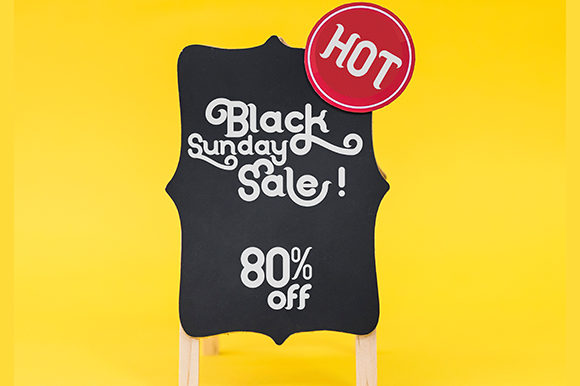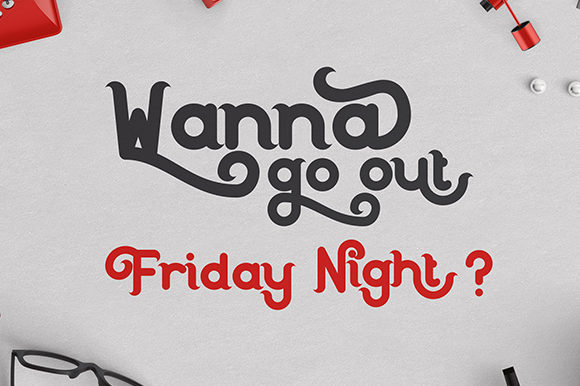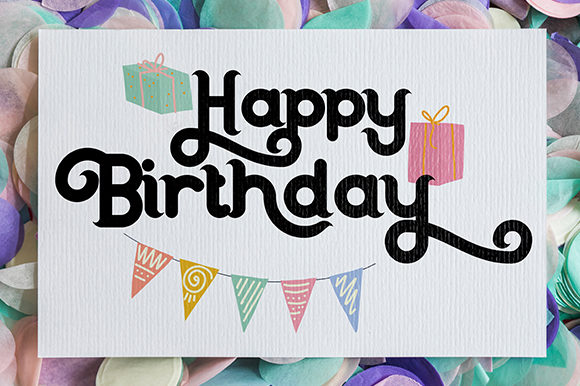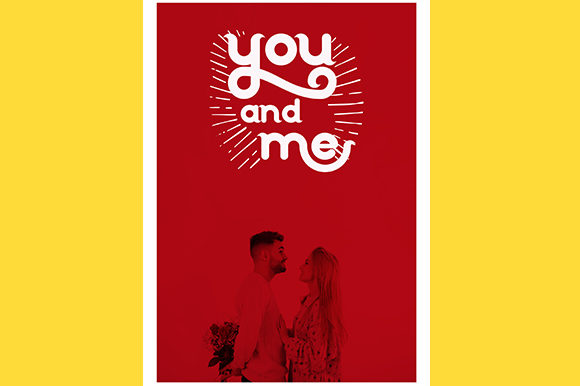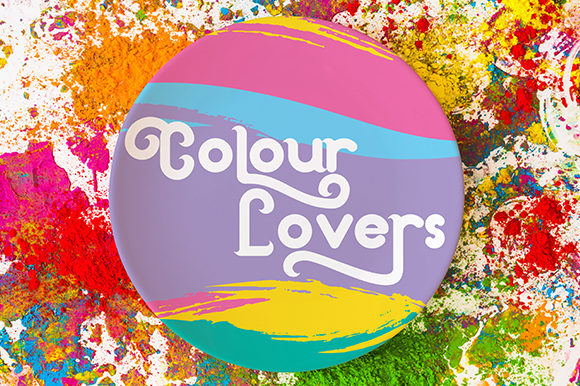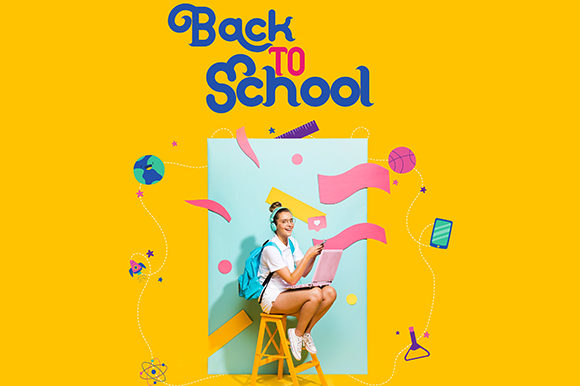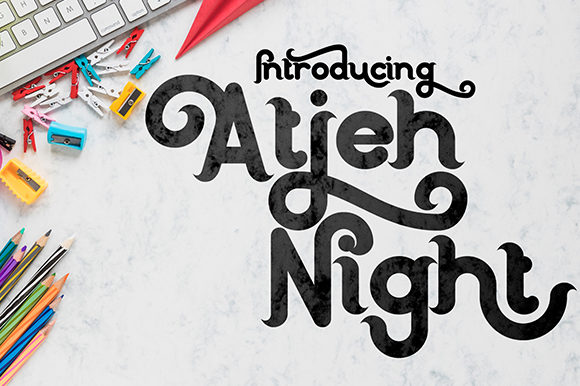
Unleash the Extraordinary: Exploring the Atjeh Night Font
Are you tired of using the same old fonts in your design projects? Look no further! Atjeh Night is a twisted and extravagant display font that will add an extraordinary feel to any design project. In this article, we’ll dive into the world of Atjeh Night and explore its unique features, uses, and benefits for designers and crafters.
What is Atjeh Night Font?
Atjeh Night is a display font that boasts a distinctive, twisted, and extravagant style. Its unique design makes it perfect for adding a touch of drama and flair to any design project. Whether you’re working on a logo, poster, or social media graphic, Atjeh Night is sure to turn heads.
Key Features of Atjeh Night Font
- Twisted and Extravagant Design: Atjeh Night’s unique design sets it apart from other fonts. Its twisted and extravagant style adds a touch of drama and flair to any design project.
- Display Font: Atjeh Night is a display font, making it perfect for headlines, titles, and other attention-grabbing elements.
- Highly Versatile: Atjeh Night can be used in a variety of design projects, from logos and posters to social media graphics and more.
Benefits of Using Atjeh Night Font
So, why should you use Atjeh Night in your design projects? Here are just a few benefits:
- Adds Drama and Flair: Atjeh Night’s unique design adds a touch of drama and flair to any design project, making it perfect for designers who want to make a statement.
- Stand Out from the Crowd: With Atjeh Night, you can create designs that stand out from the crowd and grab attention.
Who Can Benefit from Atjeh Night Font?
Atjeh Night is perfect for a variety of designers and crafters, including:
- Graphic Designers: Graphic designers can use Atjeh Night to create stunning logos, posters, and other visual elements.
- Social Media Managers: Social media managers can use Atjeh Night to create eye-catching social media graphics that grab attention.
- Crafters: Crafters can use Atjeh Night to add a personal touch to their DIY projects, such as handmade cards and gift tags.
Tips for Using Atjeh Night Font
Here are a few tips for using Atjeh Night in your design projects:
- Use it Sparingly: Atjeh Night is a bold font, so use it sparingly to avoid overwhelming your design.
- Pair it with Other Fonts: Atjeh Night pairs well with other fonts, so experiment with different combinations to find the perfect look.
- Experiment with Colors: Atjeh Night looks great in a variety of colors, so don’t be afraid to experiment and find the perfect hue.
Atjeh Night is a twisted and extravagant display font that will add an extraordinary feel to any design project. With its unique design, high versatility, and ease of use, it’s perfect for designers and crafters who want to make a statement. Whether you’re working on a logo, poster, or social media graphic, Atjeh Night is sure to turn heads.